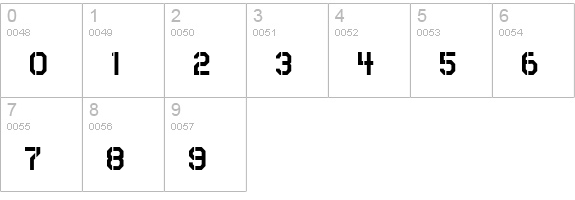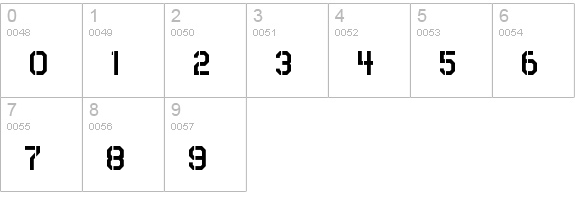
RH Carrier Stencil Font Details
Introducing the RH Carrier Stencil font, a striking typeface that combines the timeless elegance of stenciled lettering with a modern twist. Designed with precision and attention to detail, this font exudes strength and versatility, making it the perfect choice for a wide range of design projects. Featuring clean lines and bold proportions, RH Carrier Stencil font demands attention and commands authority. Its sleek and contemporary appearance effortlessly captures the essence of modern design, while retaining a classic appeal that stands the test of time. One of the standout features of RH Carrier Stencil font is its versatility. Whether you're creating eye-catching posters, attention-grabbing headlines, or sleek branding materials, this font effortlessly adapts to any design concept. Its balanced letterforms and carefully crafted curves ensure legibility and readability, even at smaller sizes. But what truly sets RH Carrier Stencil font apart is its availability as a free download at FontsMarket.com. Yes, you read that right – this exceptional font can be yours, free of charge. FontsMarket.com provides a platform where designers, creatives, and enthusiasts alike can access a vast collection of high-quality fonts, and RH Carrier Stencil font is just one of the many gems waiting to be discovered. So why wait? Download RH Carrier Stencil font today and unleash your creativity. Whether you're a seasoned designer seeking a new addition to your font library or an aspiring artist looking for a font that will make your work stand out, this font is a must-have. With its striking visual impact and the added bonus of being freely available, RH Carrier Stencil font is the perfect choice for any project that demands a touch of sophistication and style.